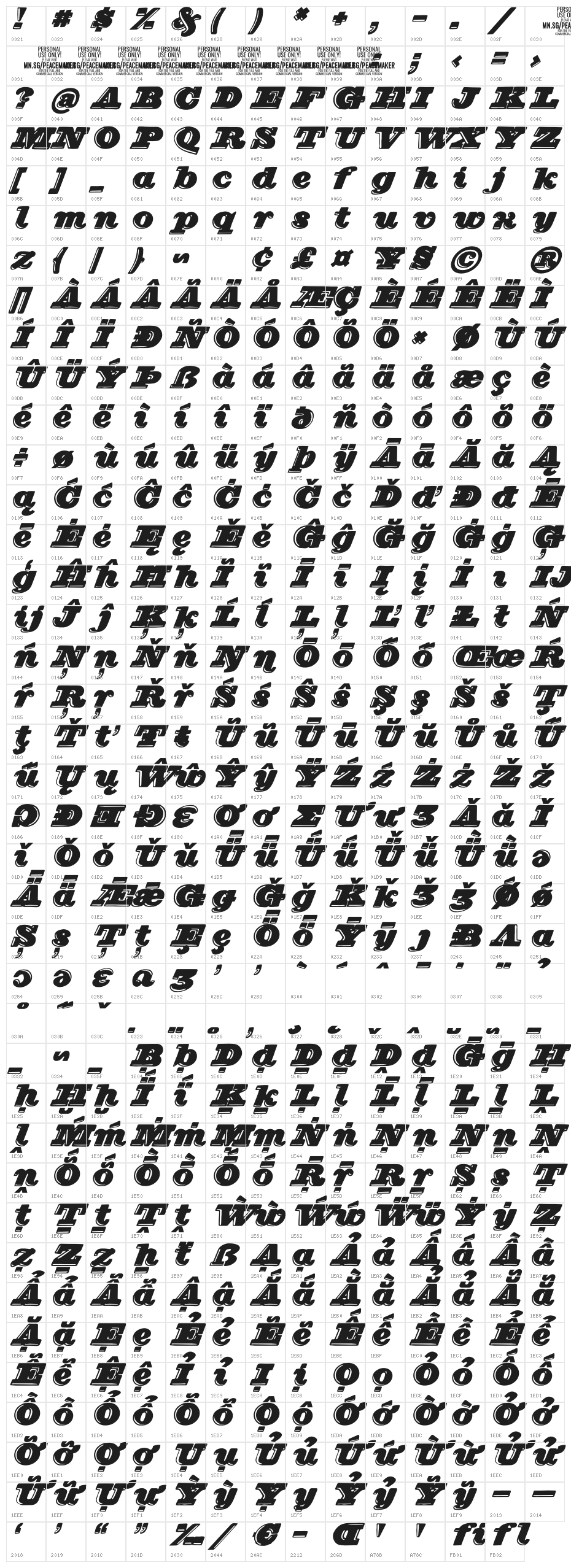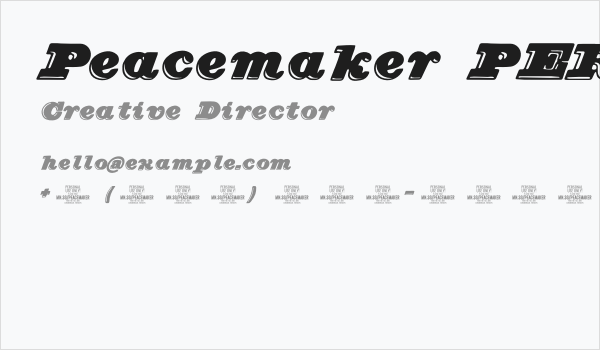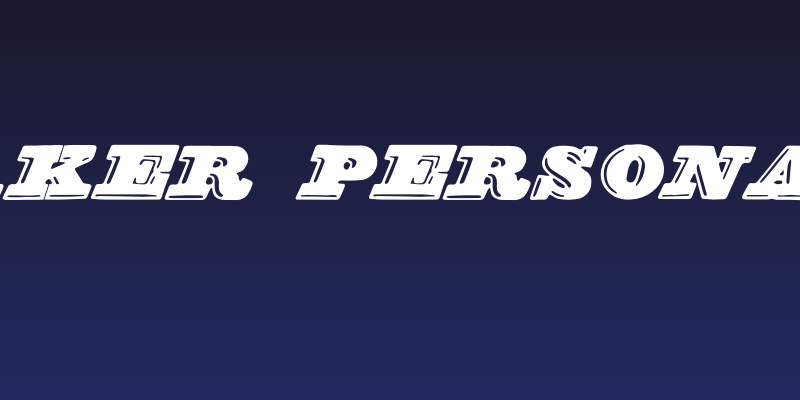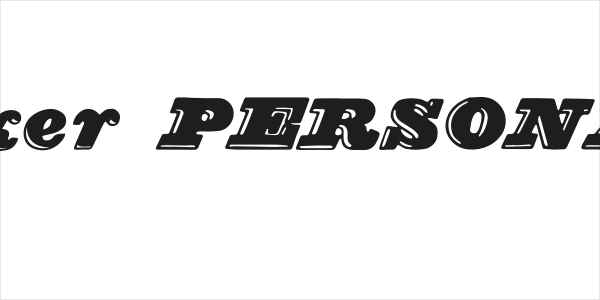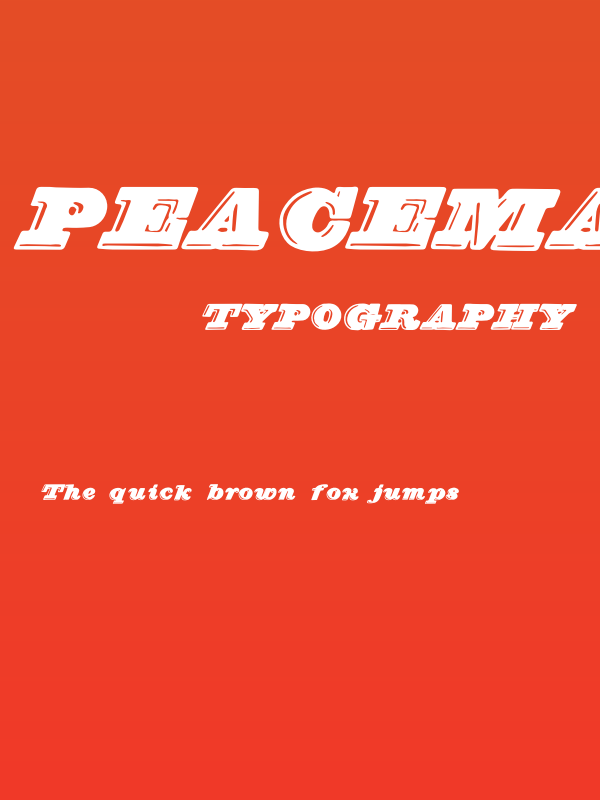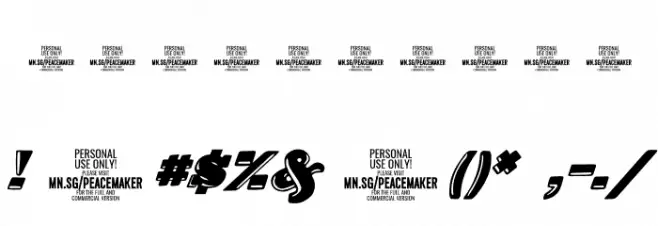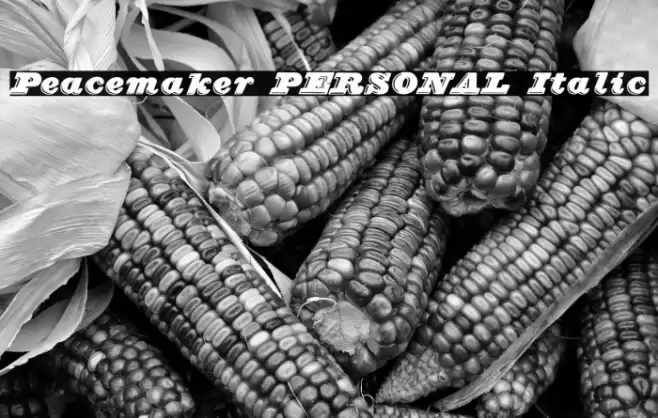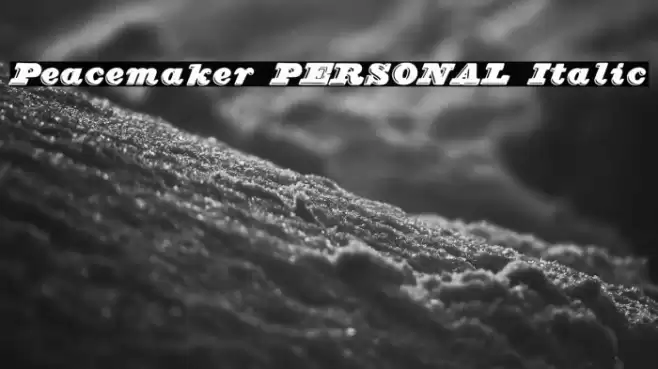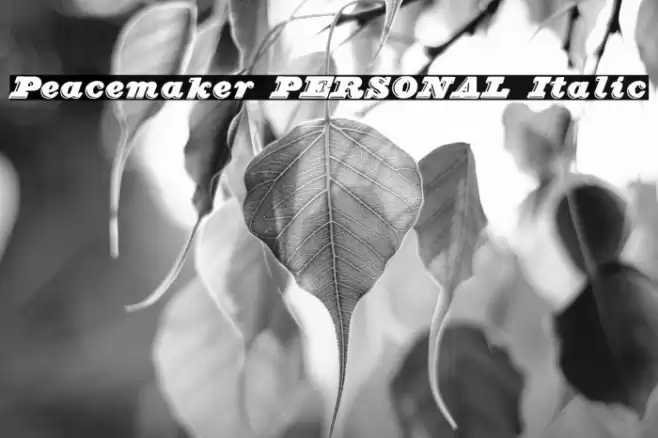
Peacemaker PERSONAL Italic Font
Peacemaker PERSONAL Italic Description
This font features a bold and dynamic style with a strong italic slant, giving it a sense of movement and energy. The characters are thick and robust, with a slight shadow effect that adds depth and dimension. The uppercase letters are particularly striking, with a bold presence that commands attention. The lowercase letters maintain the same boldness, ensuring consistency across text. The numerals and special characters are equally bold, making them stand out effectively. This font is ideal for projects that require a strong visual impact.
| Proposed Projects | Ideal for posters, logos, headlines, and branding materials that require a bold and impactful look. |